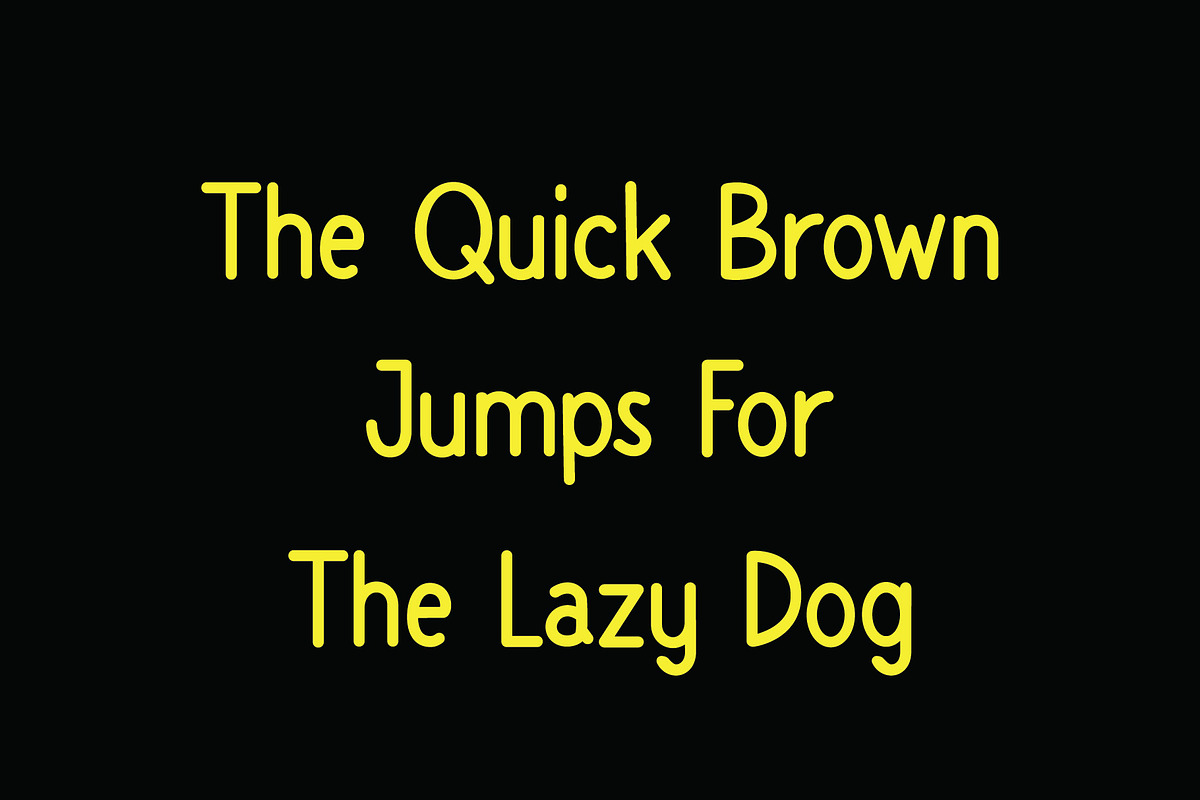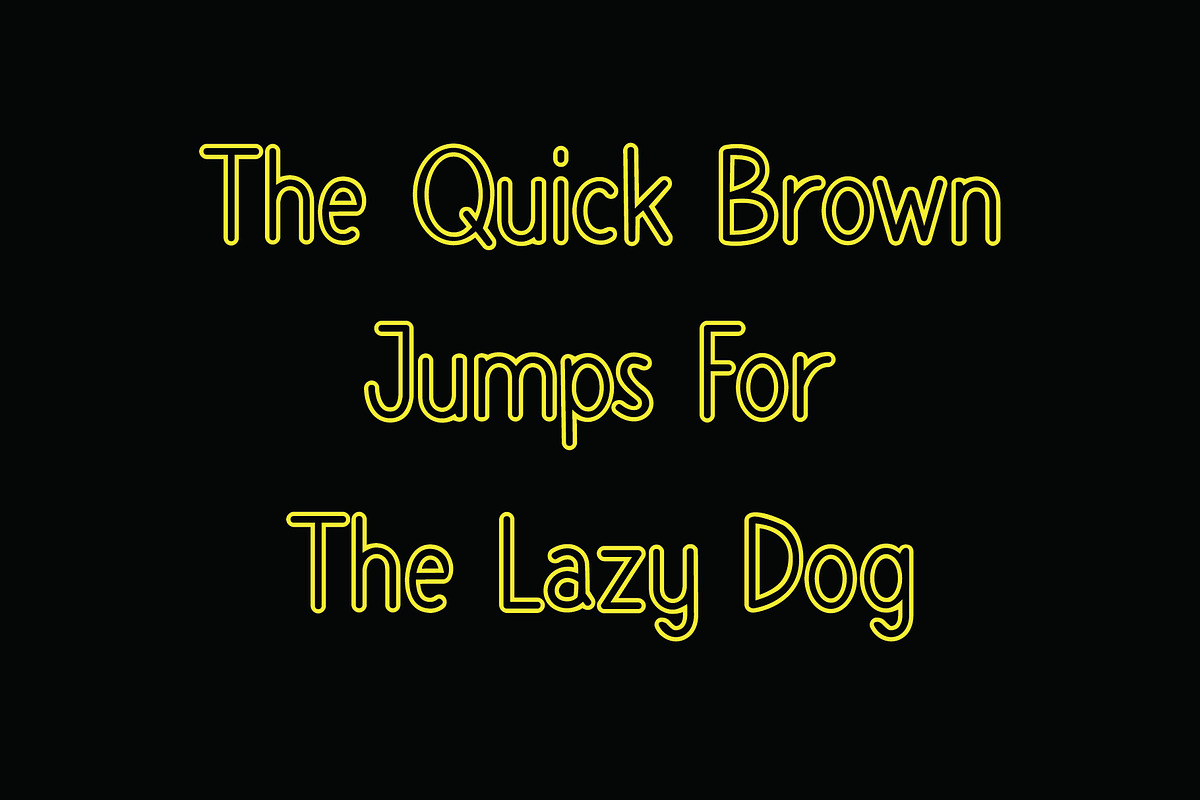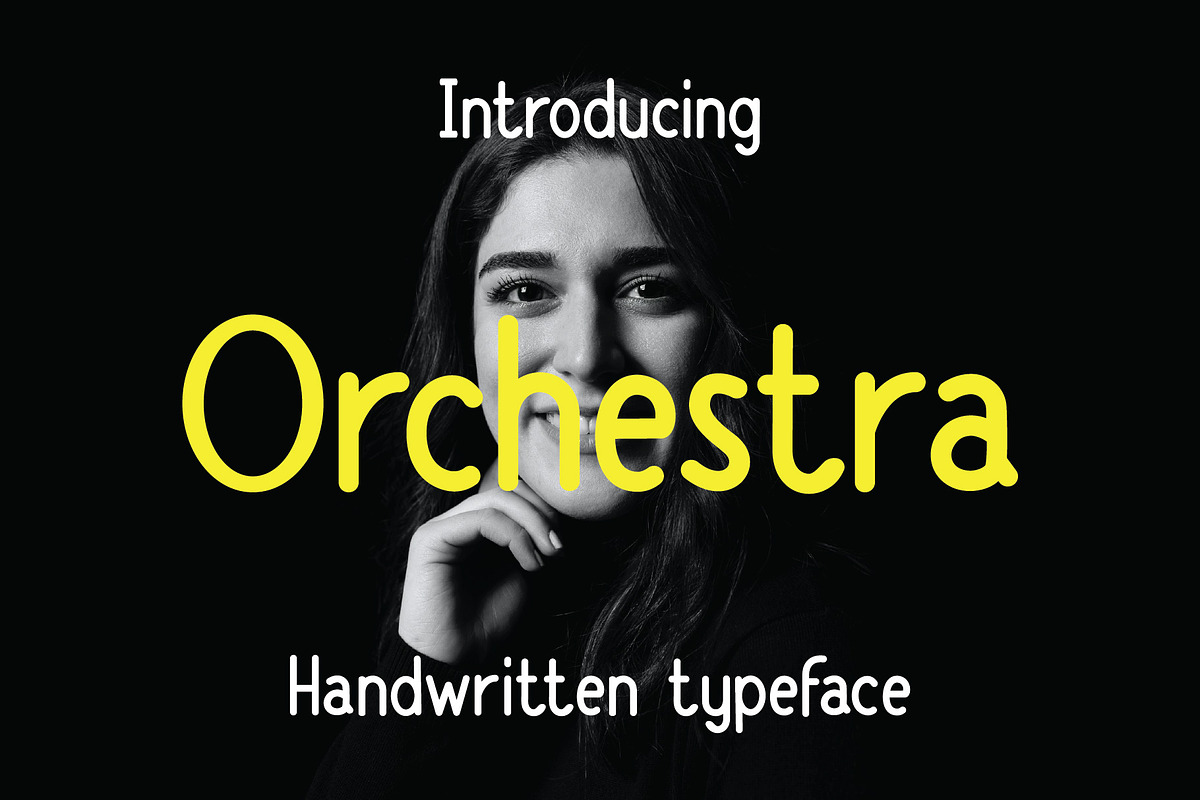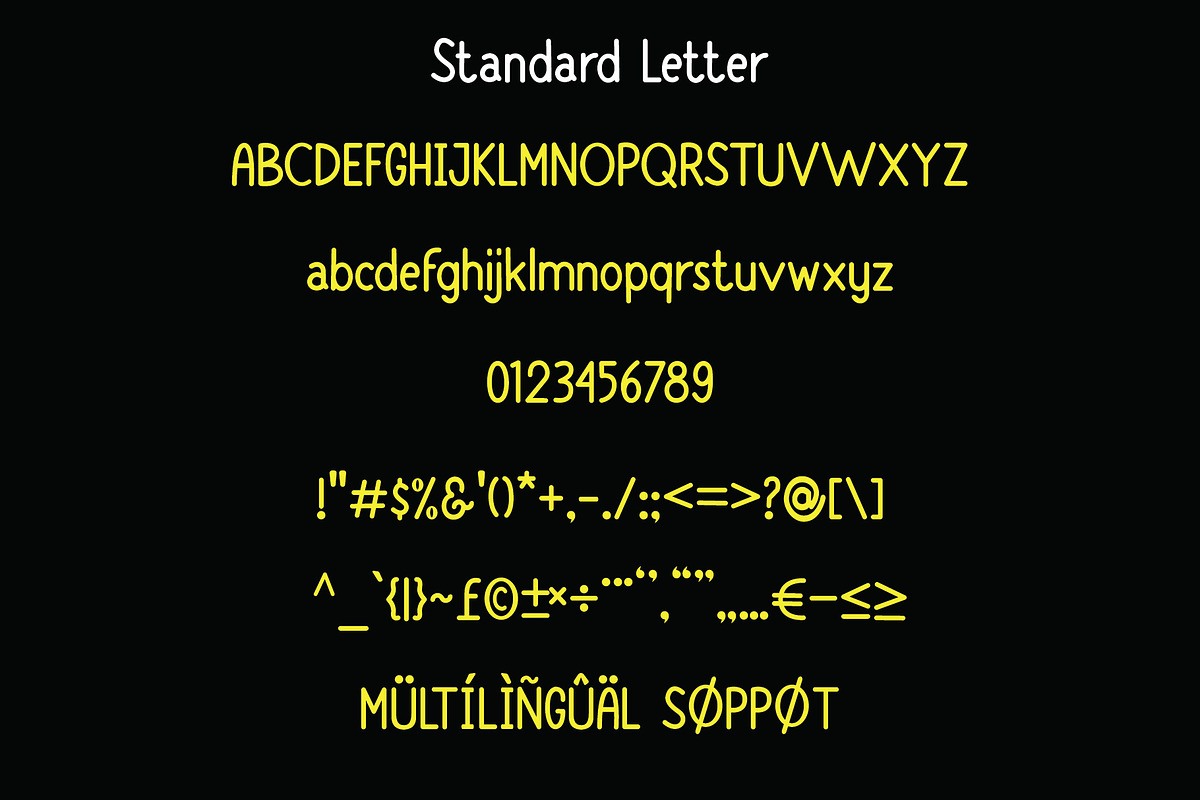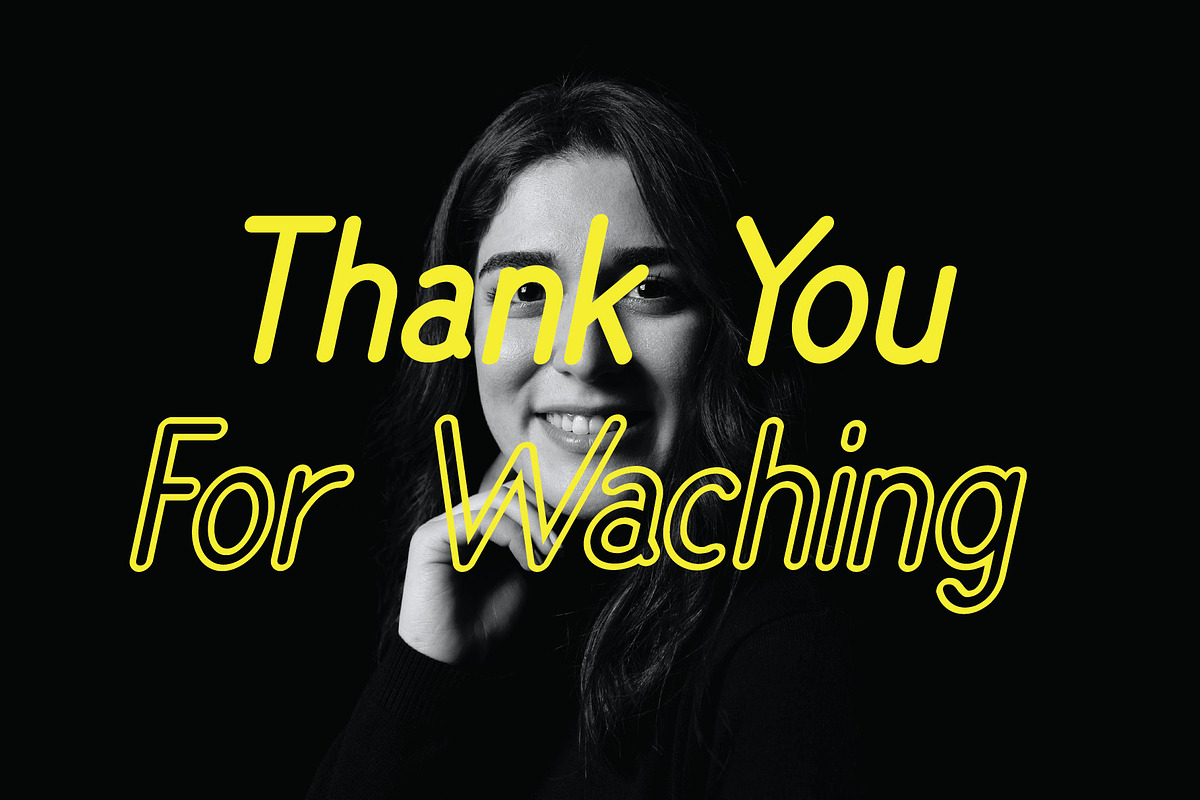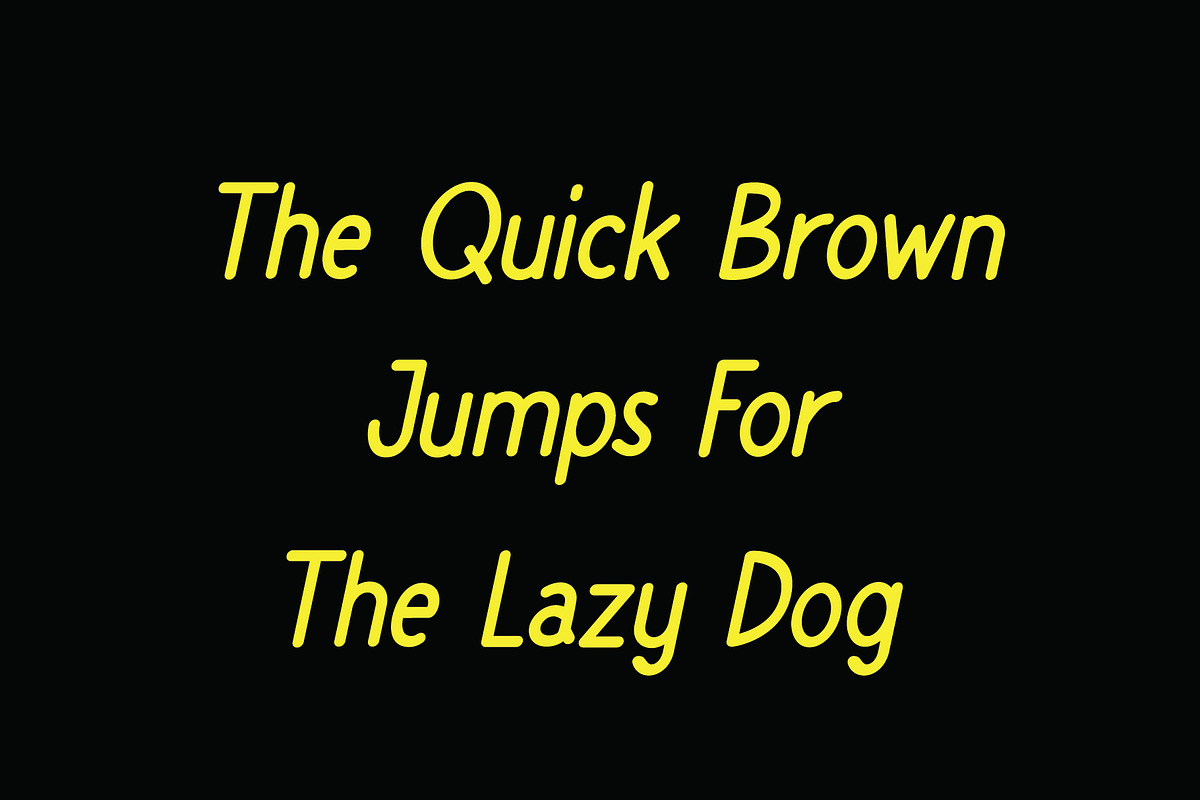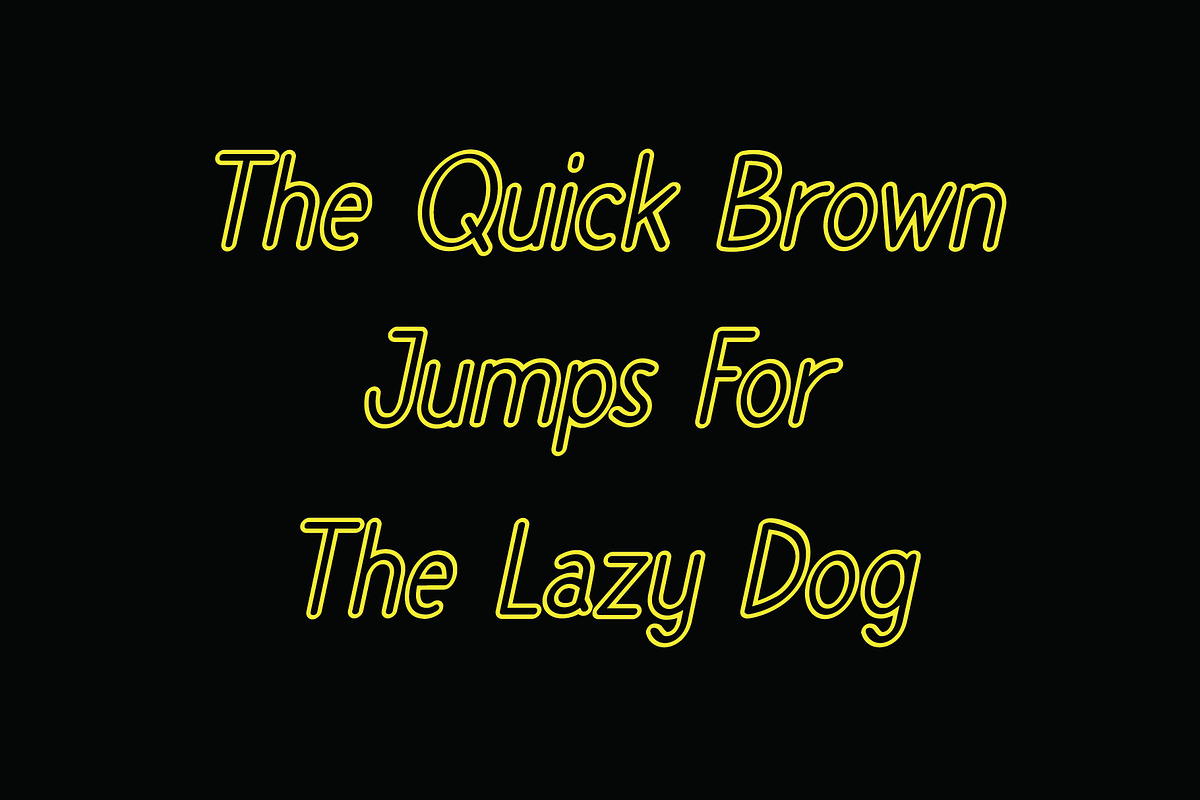
Orchestra
Orchestra is a type of modern handwriting with four types of characters with one family namely Regular, Slant, Hollow, and Hollow Slant. You can vary the words or sentences as you want. File TTF dan OTF